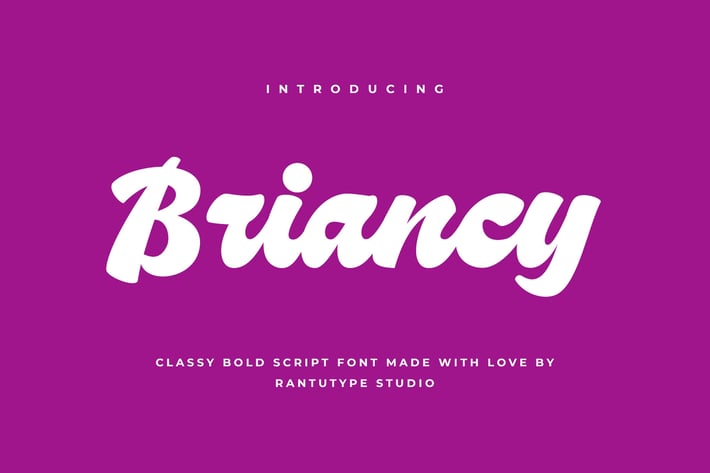
Briancy Classy Bold Script Font
Briancy is classy serif font made with passion that embraces grace. Briancy bring elegant touch and bold shape to create memoriable character.
Briancy is a beautiful choice for any creative endeavor, creating elegant, modern, chic, lifestyle design such as logotype, title, cover, branding, invitations, wedding designs, display and magazine, social media posts, advertisements, printed quotes, product packaging, corporate brand, product designs, labels, photography, watermarks, special events and any other project with elegant touch.